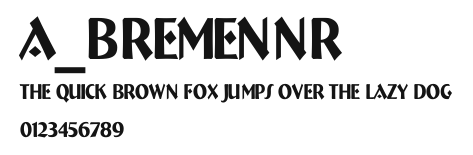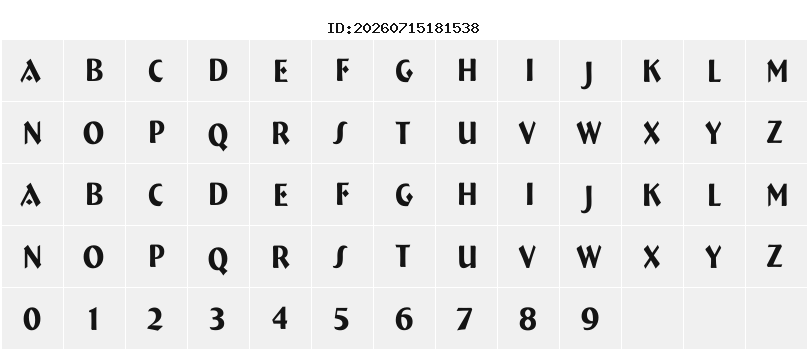
About a_BremenNr.ttf
a_BremenNr.ttf is a modern, elegant sans-serif font designed for ultimate readability and visual harmony. Perfect for branding, headlines, web design, and print materials.